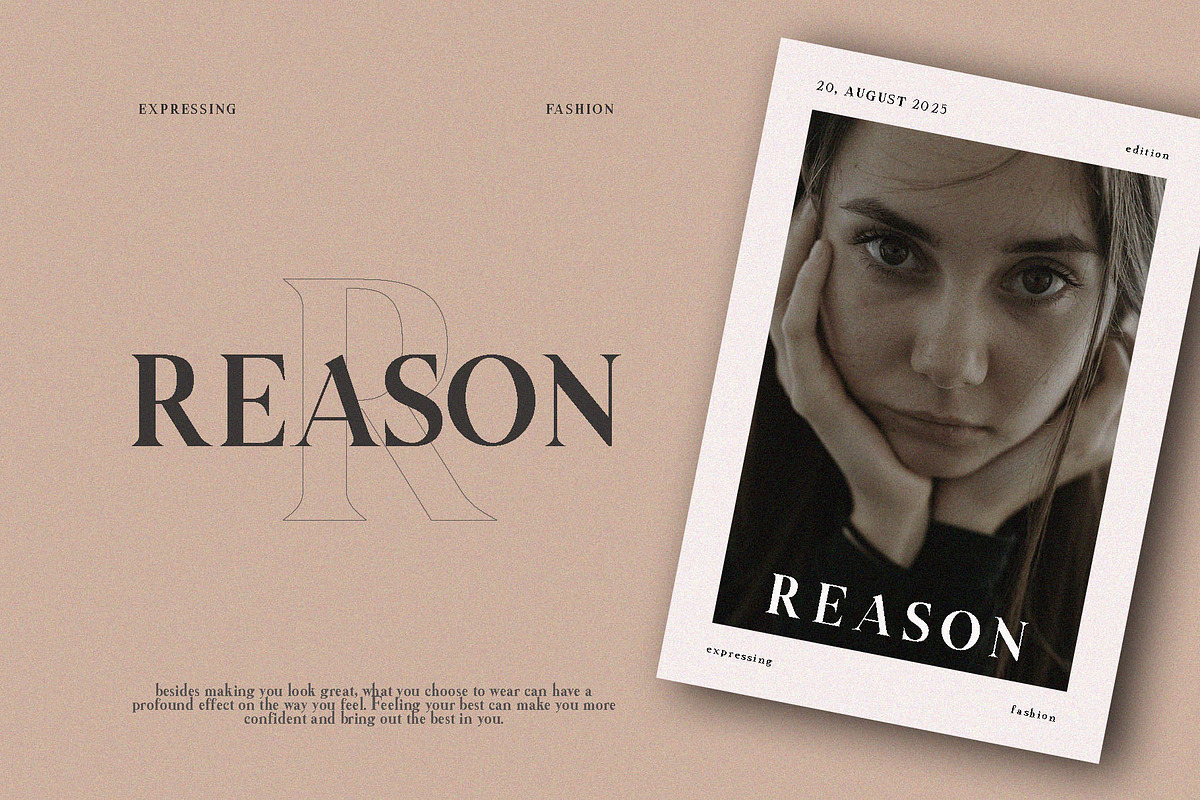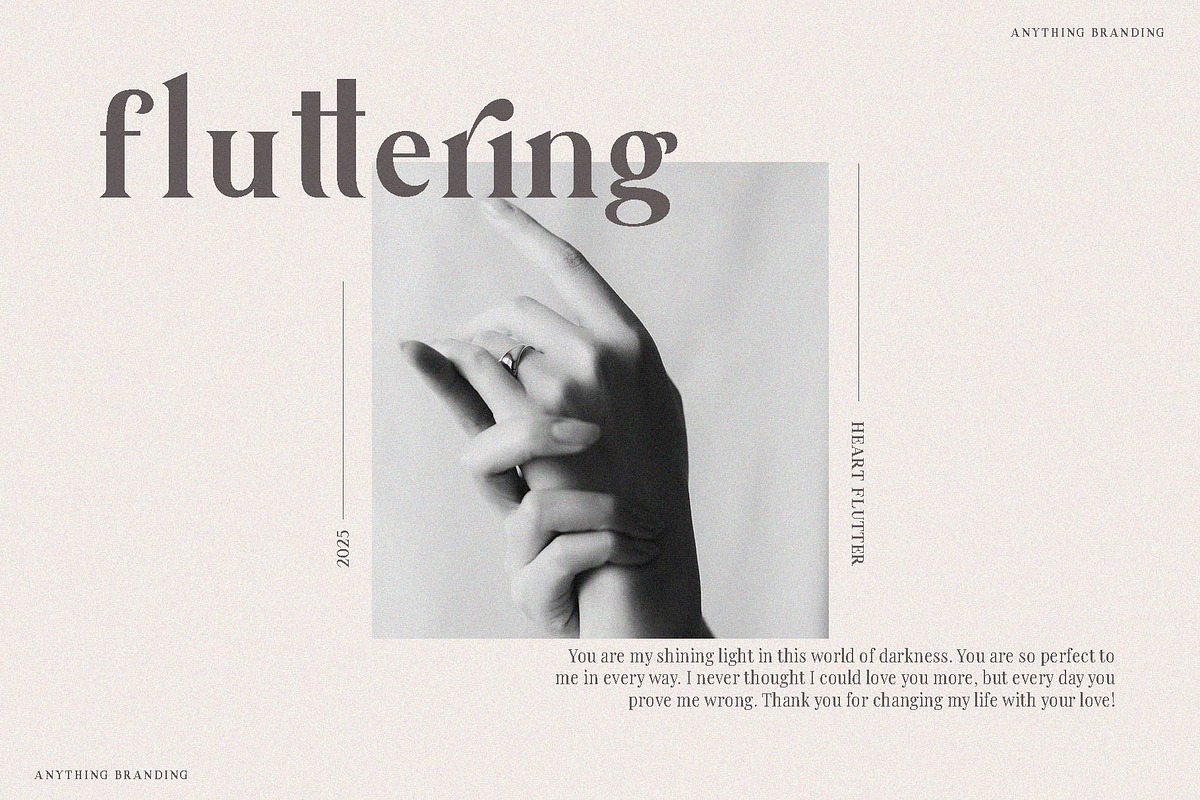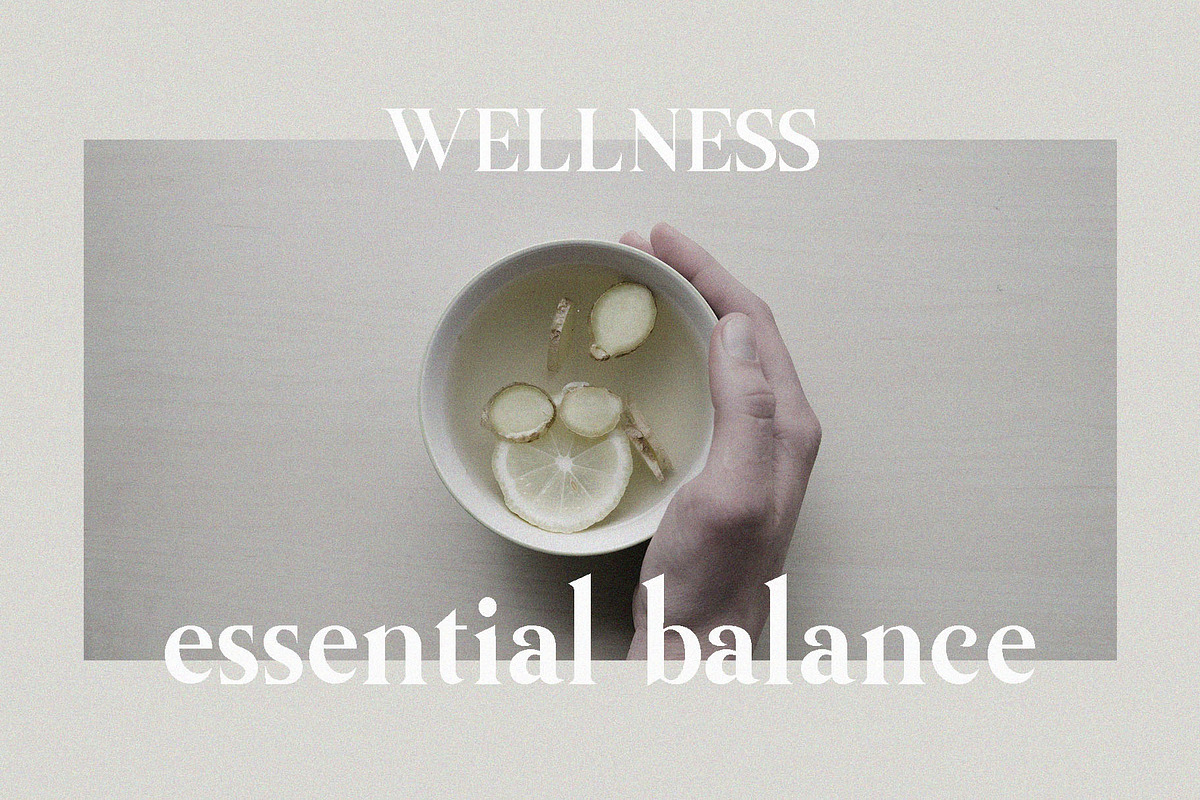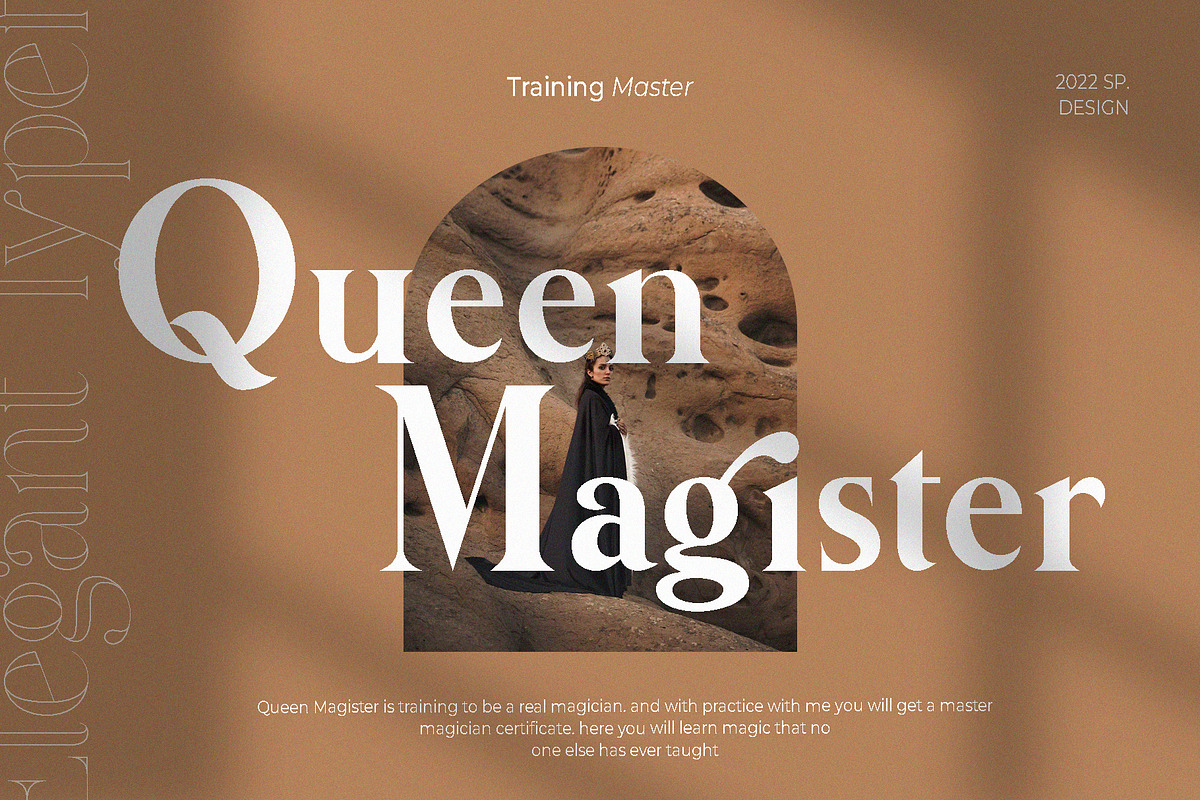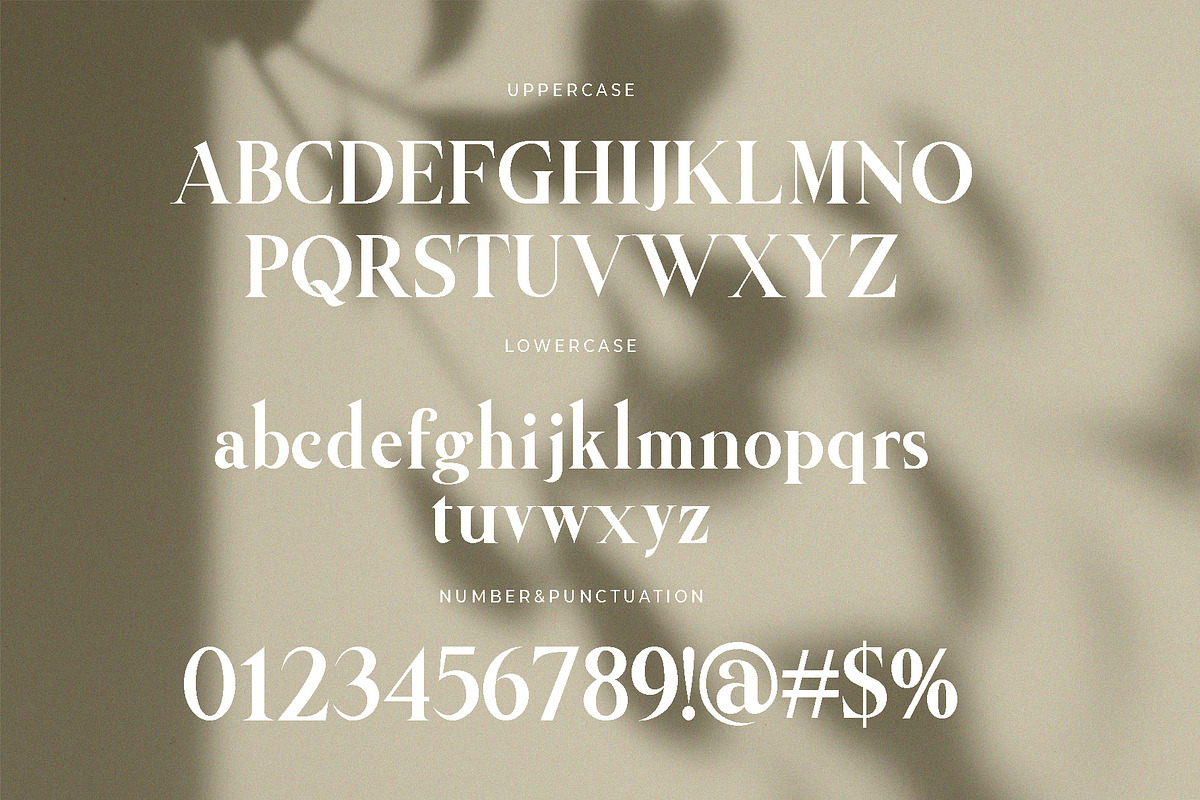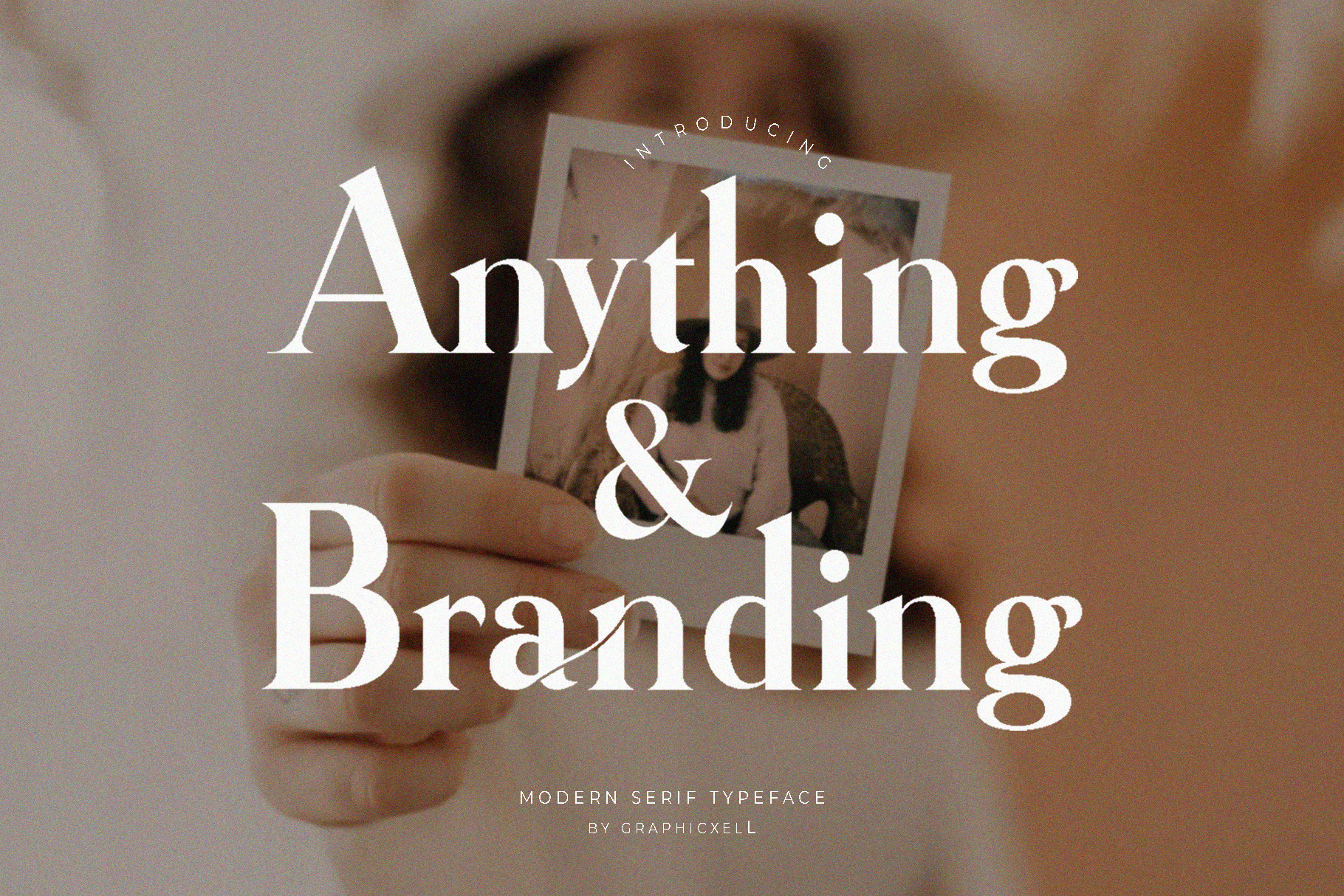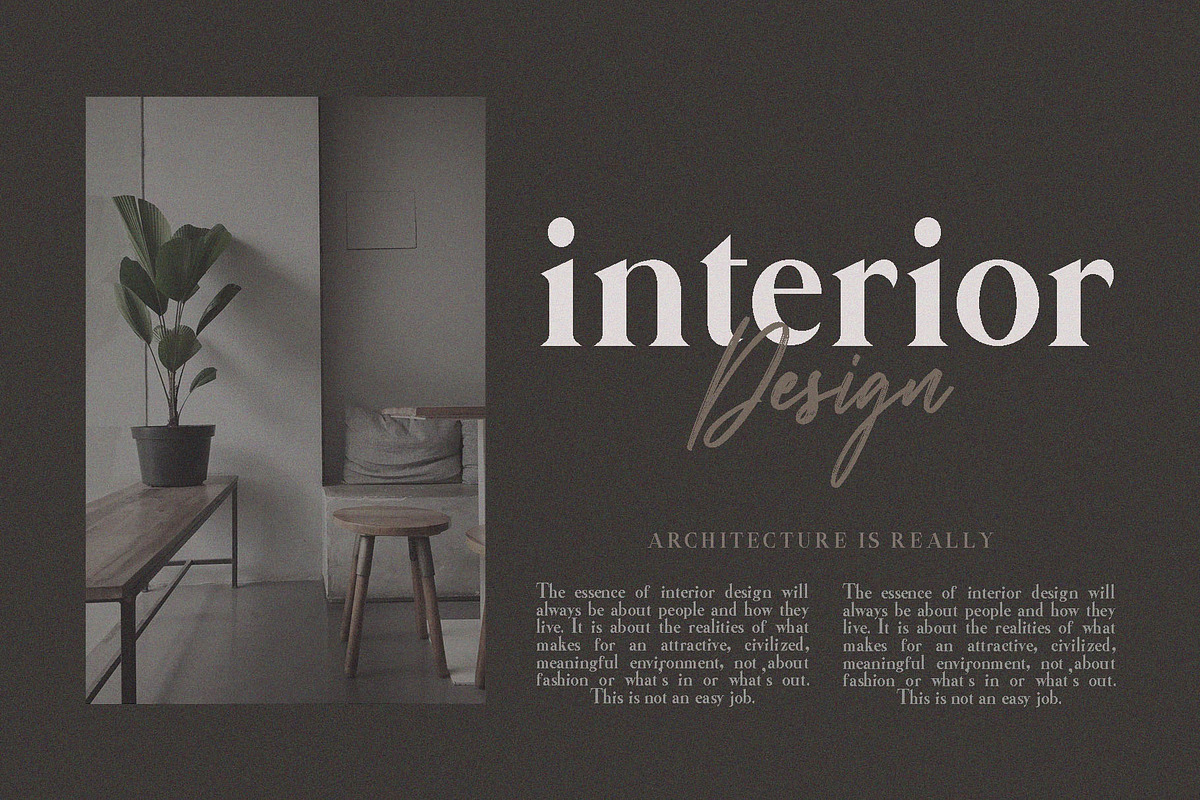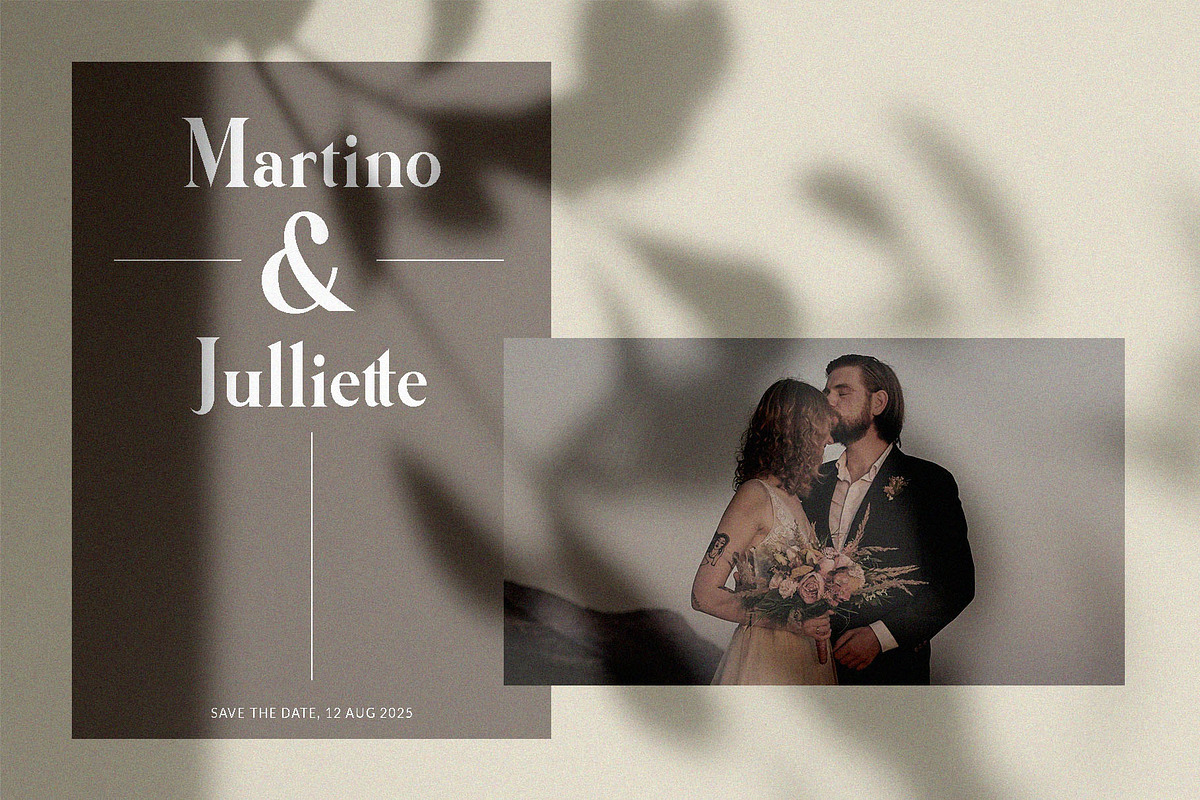
Anything Branding Serif Font
Anything Branding Serif Font inspired by the famous minimalist logo perfect for the purposes of designing templates, brochures, videos, advertising branding, logos, invitation, layout design, elegant crafting, Instagram template, fashion, film cover beauty design, and more.